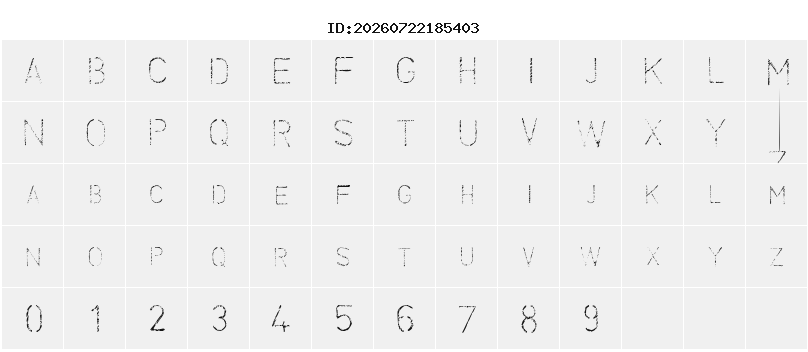
• Designer: JupiterImages
JI-Dupery.ttf is a modern, elegant sans-serif font designed for ultimate readability and visual harmony. Perfect for branding, headlines, web design, and print materials.